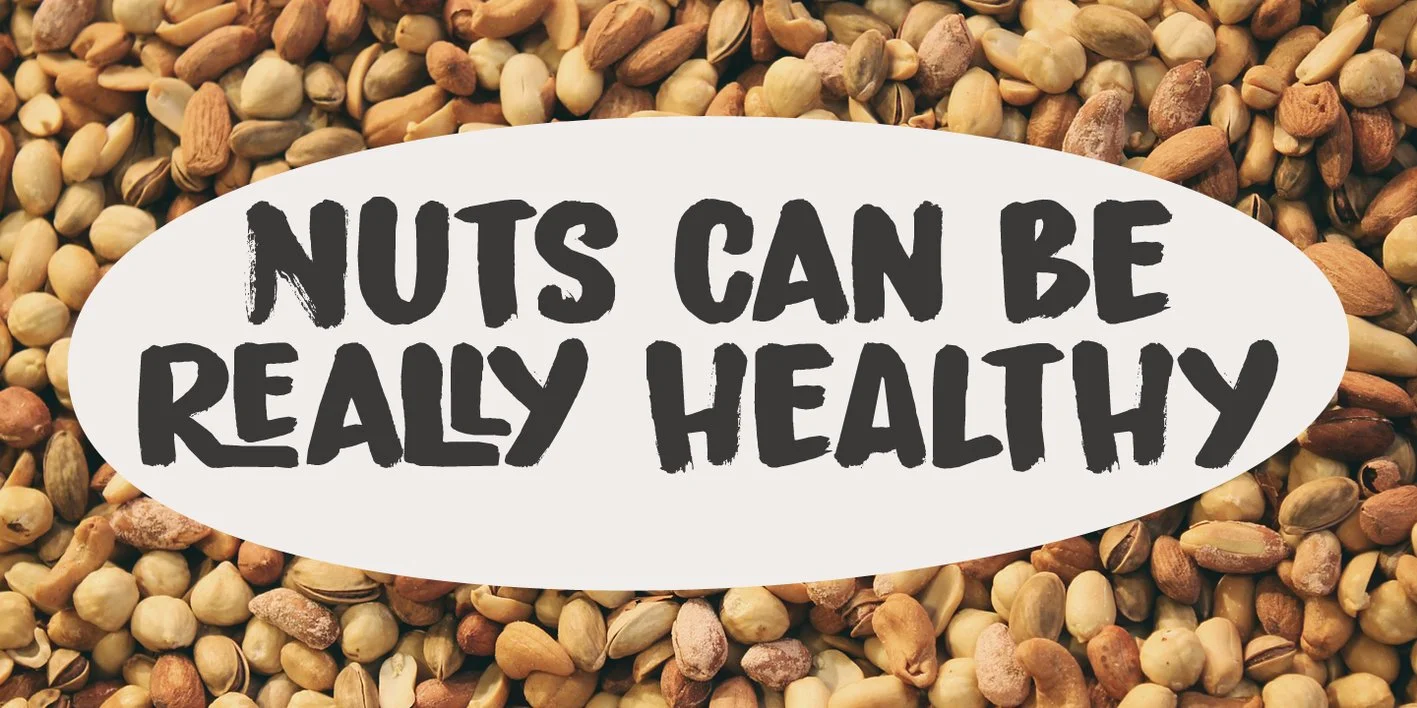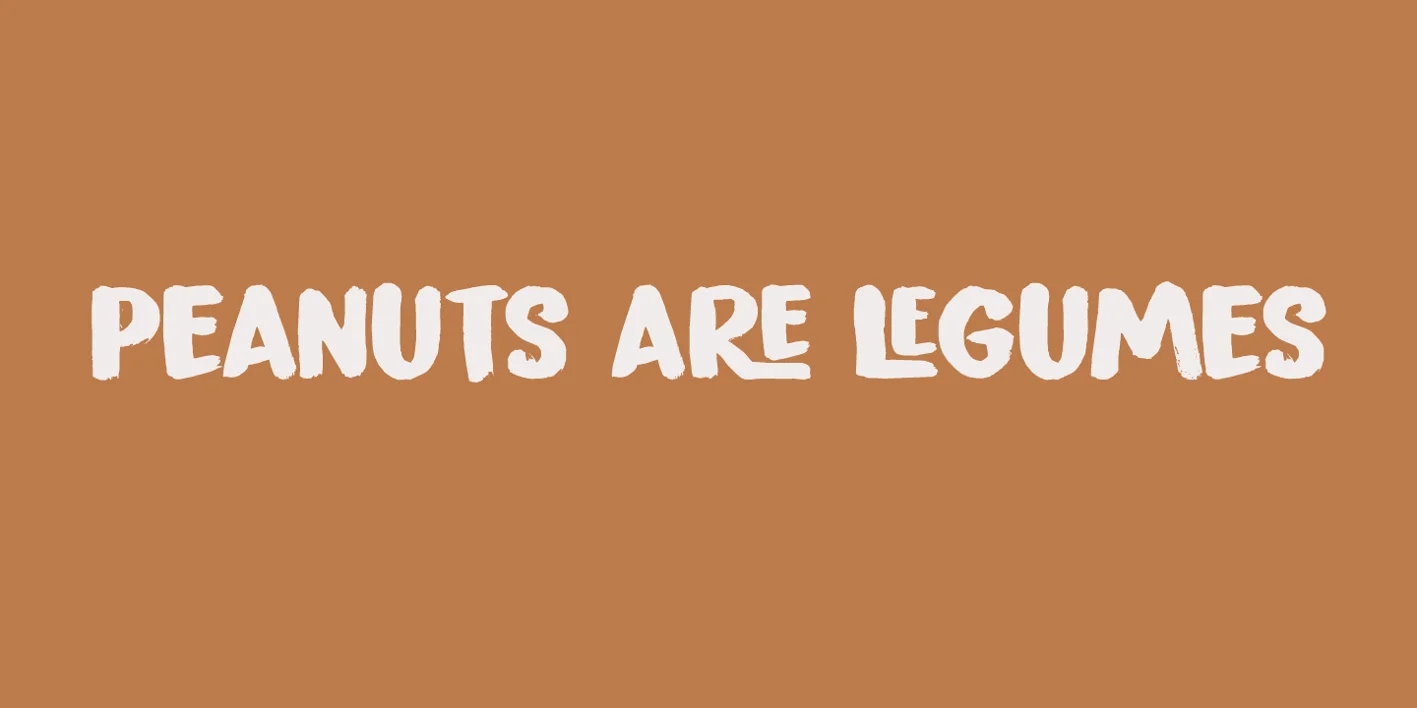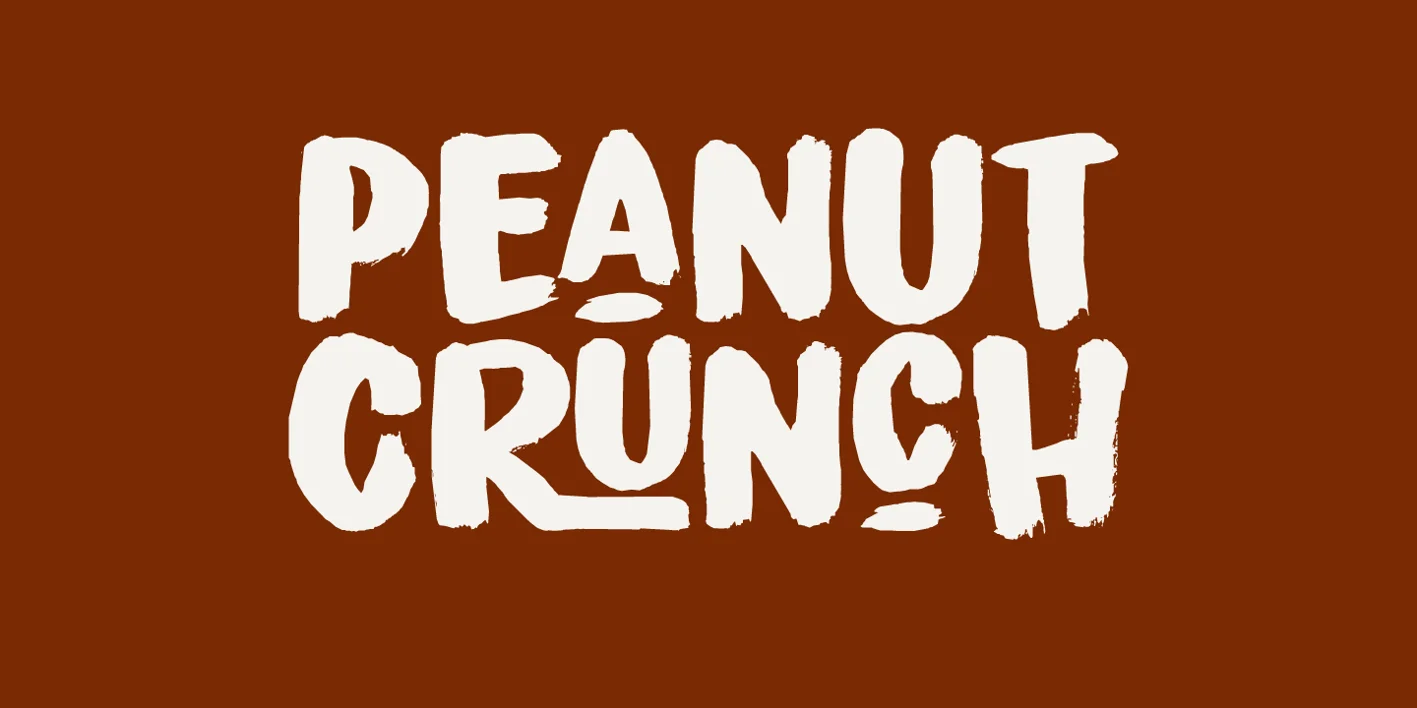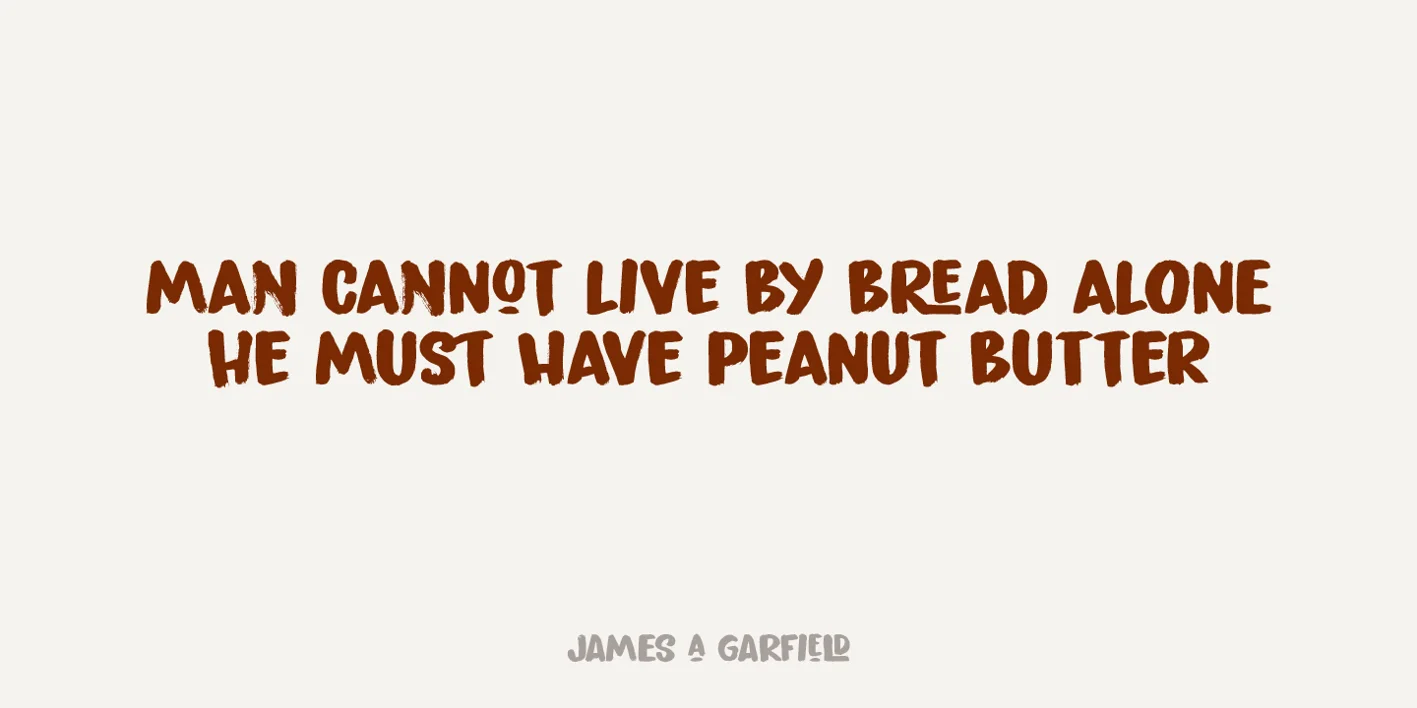
Peanut Crunch Font
Typography shapes perception at a subconscious level. Peanut Crunch leverages a confident voice that adapts to diverse briefs to make every composition feel considered. The typeface brings a versatile sensibility to a broad range of creative disciplines, with consistent type colour across continuous text that holds up whether the work is print-first or screen-first.
In practice, Peanut Crunch proves particularly effective for editorial layouts, logo design, web design, packaging design, advertising campaigns. Designers reaching for it find that the type decisions feel resolved rather than laboured — a useful quality when client timelines are tight.
The range of applications extends to environmental graphics, brand identity systems, poster creation, annual reports. That breadth is deliberate: the proportions and spacing were stress-tested across a wide range of mock briefs before the typeface was finalised.
Pairing Peanut Crunch with a contrasting serif or a neutral grotesque gives mixed-format layouts a clear visual grammar without requiring constant size adjustments to establish hierarchy.
Art directors commissioning type-led campaigns find Peanut Crunch a reliable choice for projects that demand both personality and restraint. The design avoids the self-conscious quirkiness that dates quickly, settling instead for considered distinctiveness that holds up over time.